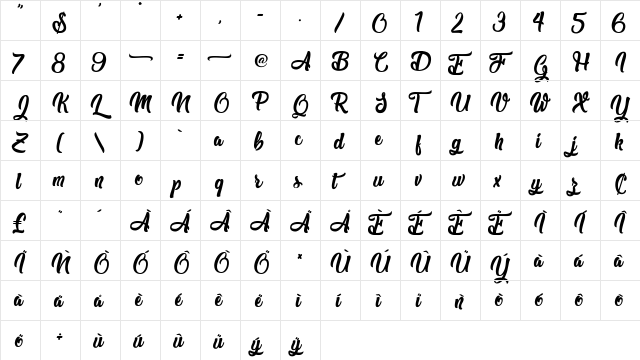
The West Gate Regular
| Foundry | Typhoon Type - Suthi Srisopha |
| Designer | Typhoon Type - Suthi Srisopha |
Design Context for The West Gate Typeface
The West Gate is a composed and adaptable typeface that performs quietly and consistently across a wide range of design contexts.